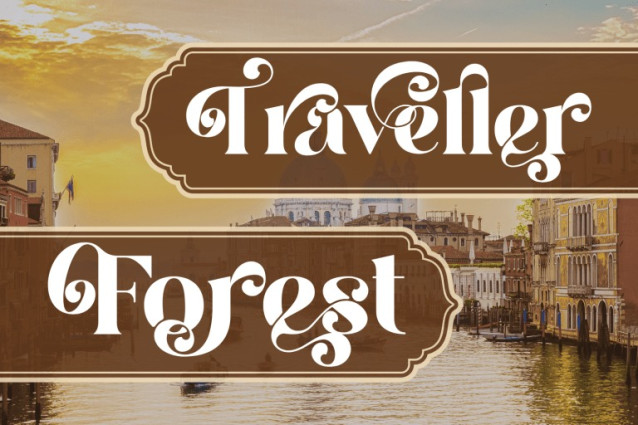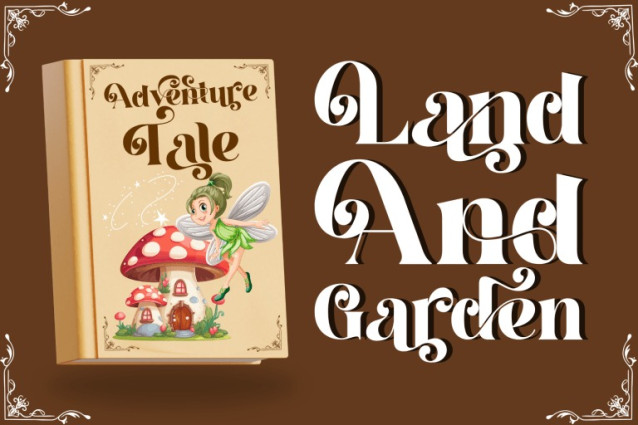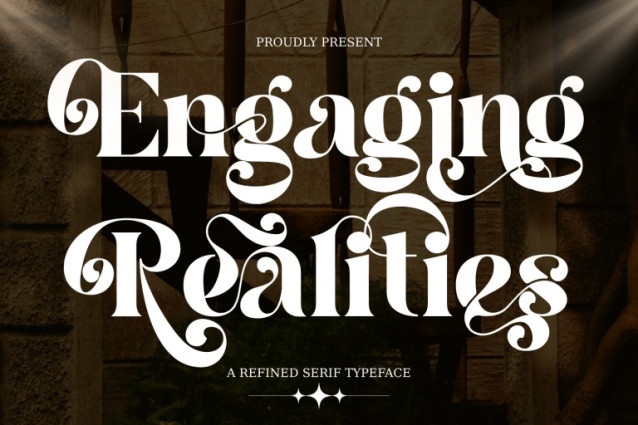
Engaging Realities Font
Engaging Realities Font – Ligature Serif Font – A Luxurious Decorative Serif Font, is a refined decorative serif display font that blends classical elegance with artistic flourish. Each letterform carries a strong contrast between bold strokes and delicate curves, enriched with ornamental swashes that add movement and sophistication. This font radiates timeless charm and is perfect for luxury branding, wedding invitations, editorial headlines, boutique packaging, and artistic projects that seek to stand out with grace and drama.
🔤Font Features:
Uppercase & Lowercase Letters
~100 Special Ligatures
Accented Characters for multilingual support
🔤About 100 ligatures combined with Stylistic Alternates Font: